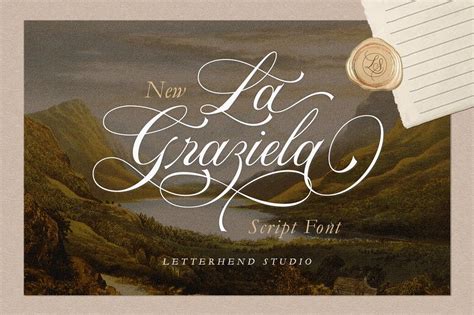
La Graziela Font
La Graziela Font - This versatile script font has a wide spectrum. Web la graziela by letterhend studio. 184,613 downloads (160 yesterday) demo. La graziela font is an enchanting handwritten font.
La graziela font is an enchanting handwritten font. 184,613 downloads (160 yesterday) demo. Web la graziela by letterhend studio. This versatile script font has a wide spectrum.
This versatile script font has a wide spectrum. Web la graziela by letterhend studio. 184,613 downloads (160 yesterday) demo. La graziela font is an enchanting handwritten font.
La Graziela Script Font
Web la graziela by letterhend studio. This versatile script font has a wide spectrum. 184,613 downloads (160 yesterday) demo. La graziela font is an enchanting handwritten font.
Web la graziela by letterhend studio. This versatile script font has a wide spectrum. La graziela font is an enchanting handwritten font. 184,613 downloads (160 yesterday) demo.
This versatile script font has a wide spectrum. La graziela font is an enchanting handwritten font. Web la graziela by letterhend studio. 184,613 downloads (160 yesterday) demo.
184,613 downloads (160 yesterday) demo. This versatile script font has a wide spectrum. Web la graziela by letterhend studio. La graziela font is an enchanting handwritten font.
This versatile script font has a wide spectrum. 184,613 downloads (160 yesterday) demo. Web la graziela by letterhend studio. La graziela font is an enchanting handwritten font.
Web la graziela by letterhend studio. This versatile script font has a wide spectrum. 184,613 downloads (160 yesterday) demo. La graziela font is an enchanting handwritten font.
Web la graziela by letterhend studio. 184,613 downloads (160 yesterday) demo. La graziela font is an enchanting handwritten font. This versatile script font has a wide spectrum.
184,613 downloads (160 yesterday) demo. This versatile script font has a wide spectrum. La graziela font is an enchanting handwritten font. Web la graziela by letterhend studio.
La Graziela Script Font
This versatile script font has a wide spectrum. La graziela font is an enchanting handwritten font. 184,613 downloads (160 yesterday) demo. Web la graziela by letterhend studio.
La Graziela Font Is An Enchanting Handwritten Font.
Web la graziela by letterhend studio. 184,613 downloads (160 yesterday) demo. This versatile script font has a wide spectrum.